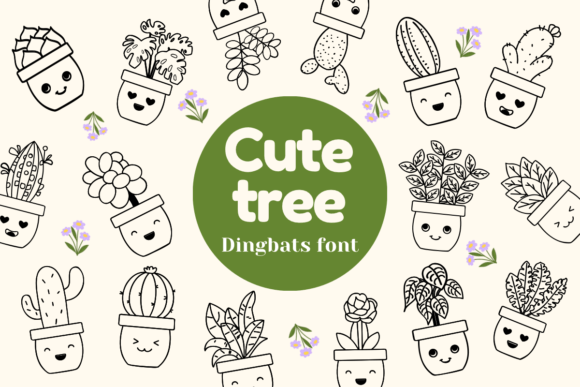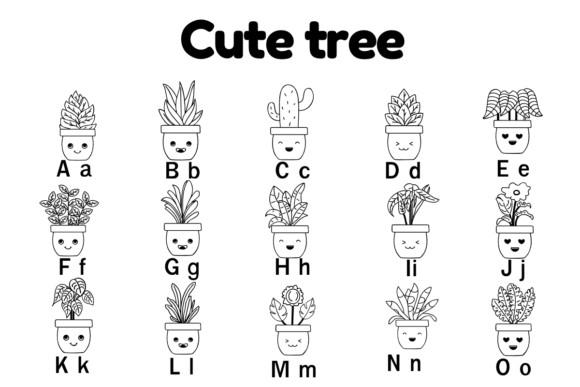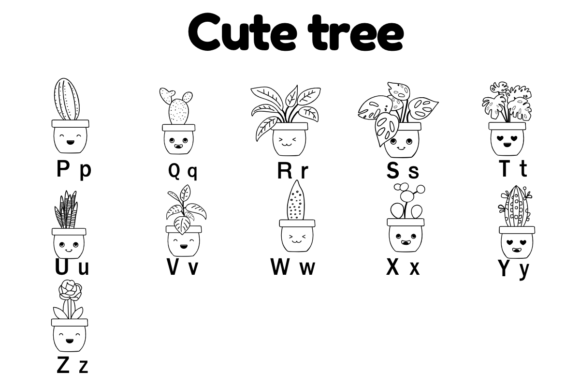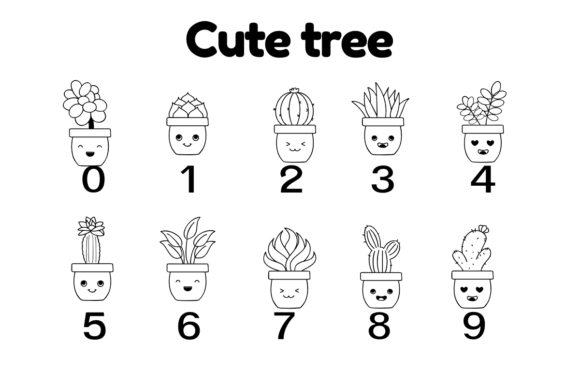
Cute Tree Font
About the Cute Tree Font
The Cute Tree Font offers a perfect balance of form and function for your design needs. Cute Tree is a playful font featuring adorable plant pots with smiling faces. Each character in the font is a different plant in a happy pot, perfect for adding a fun and cheerful touch to your designs.
Cute Tree’s playful design is ideal for children’s books, greeting cards, and branding projects targeting a young, fun-loving audience. It works exceptionally well in headlines, short slogans, and playful illustrations, adding a whimsical touch. However, its unique character shapes make it unsuitable for body text or situations requiring high readability over extended lengths.
Pairing Cute Tree with a clean sans-serif like Open Sans for body copy provides a balanced contrast between playful and functional typography. For a more sophisticated look, consider pairing it with a delicate script font such as Great Vibes for logos or smaller text elements. Avoid pairing it with heavy or overly decorative fonts which may clash with its lighthearted charm.
The overall personality of Cute Tree is undeniably cheerful and friendly, conveying a sense of childlike wonder and approachability. It’s best suited for projects emphasizing joy, creativity, and a lighthearted brand identity.
Cute Tree Font Usage Examples
Cute Tree Font Example